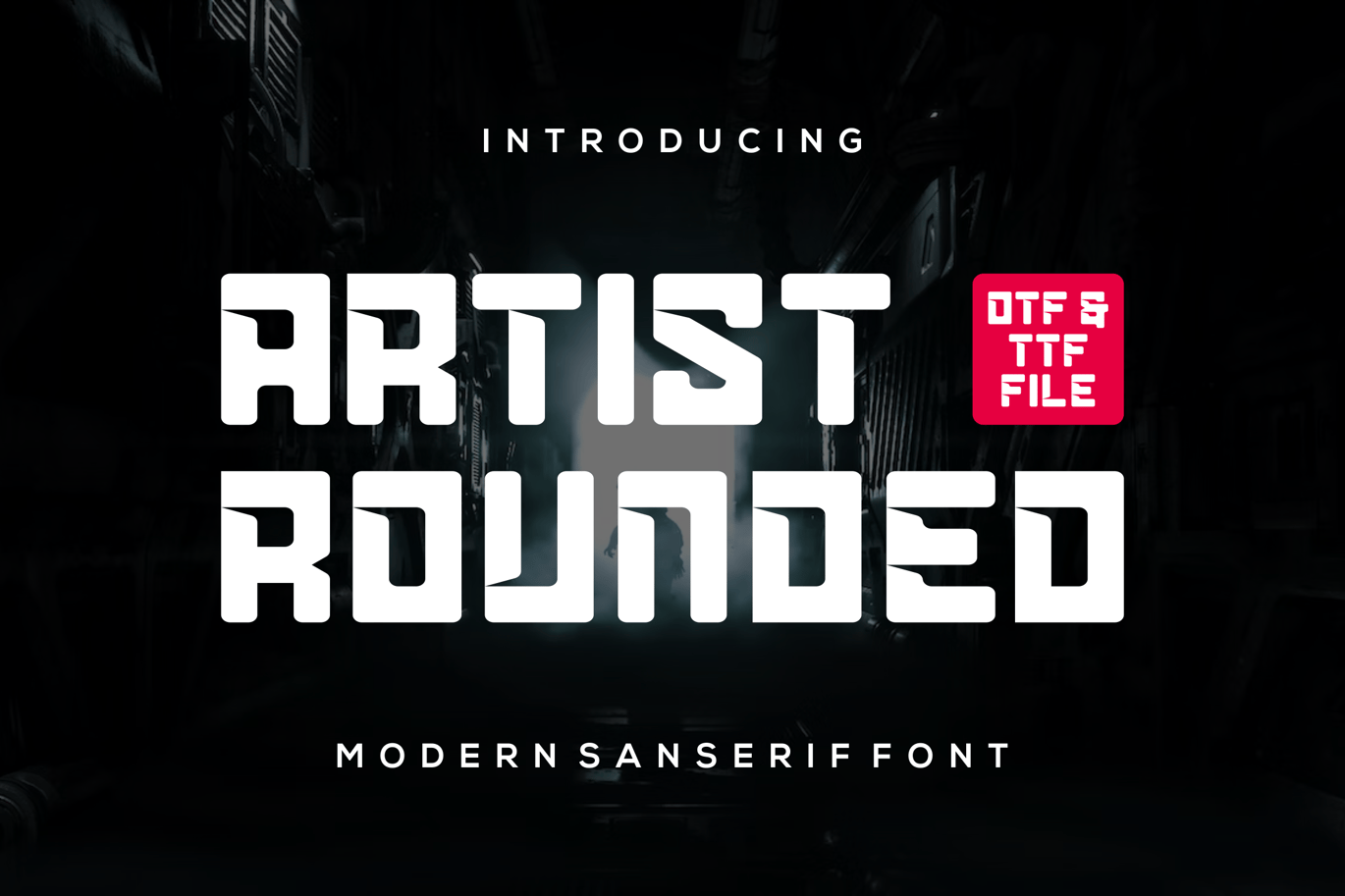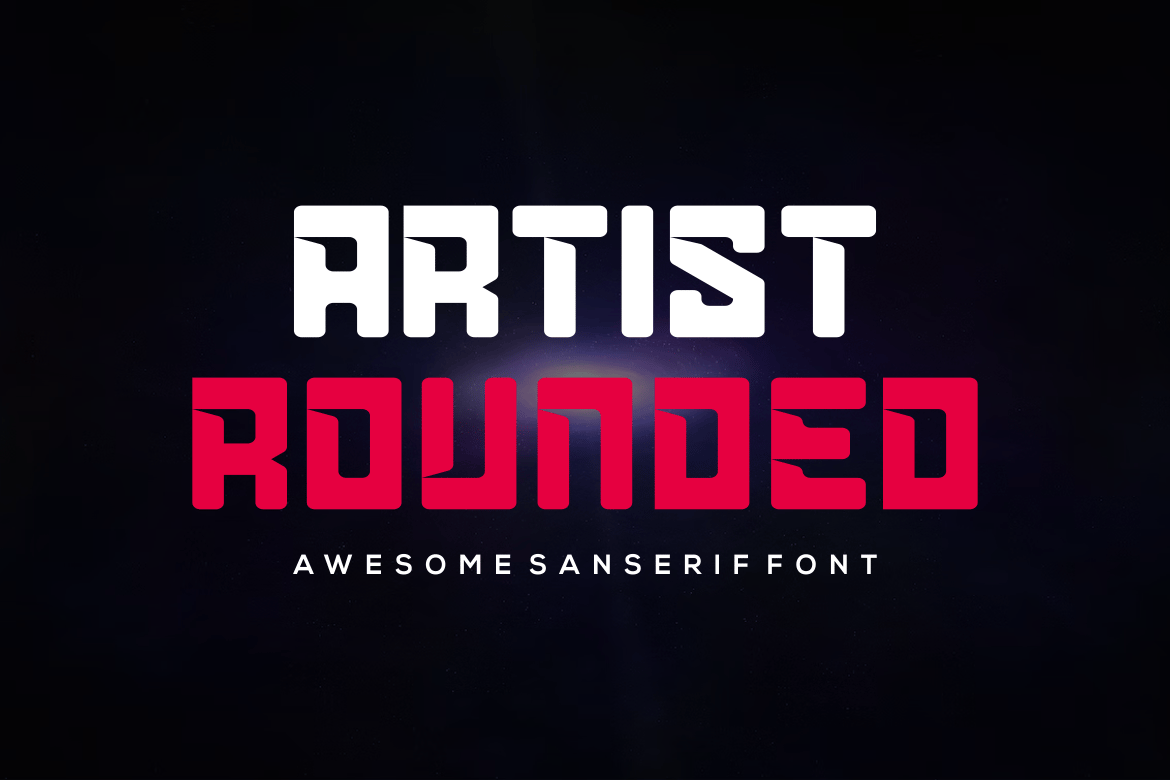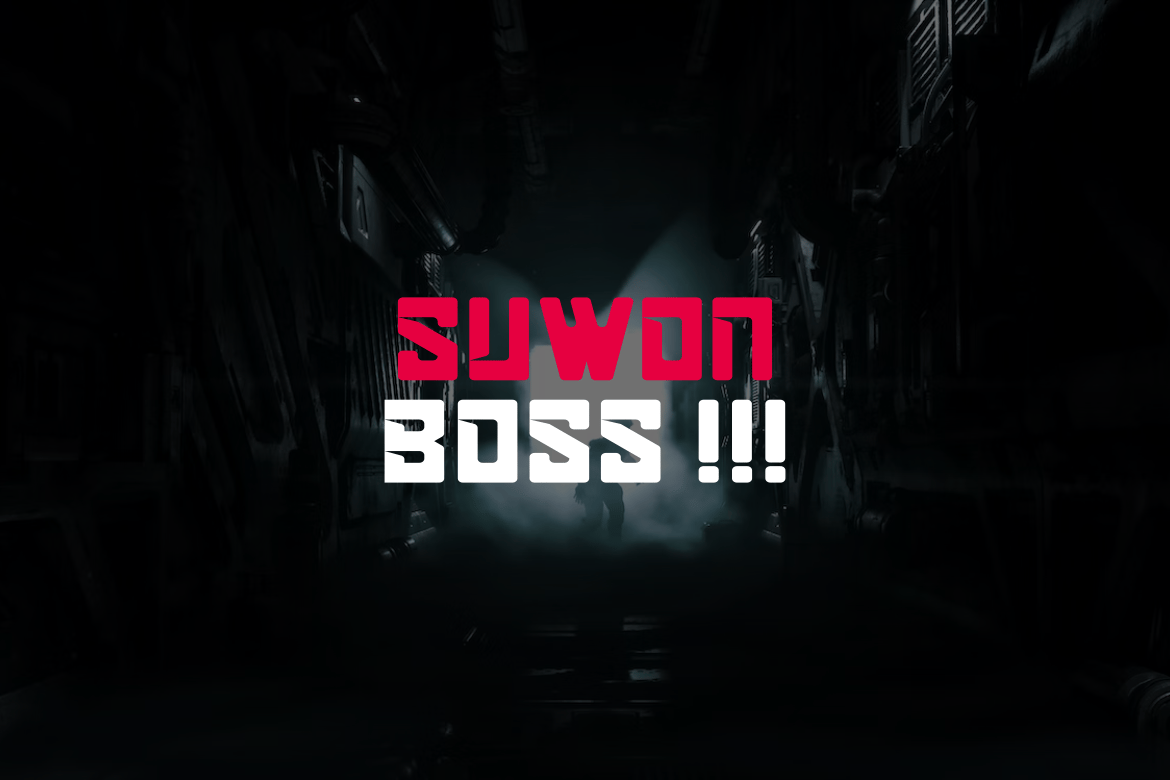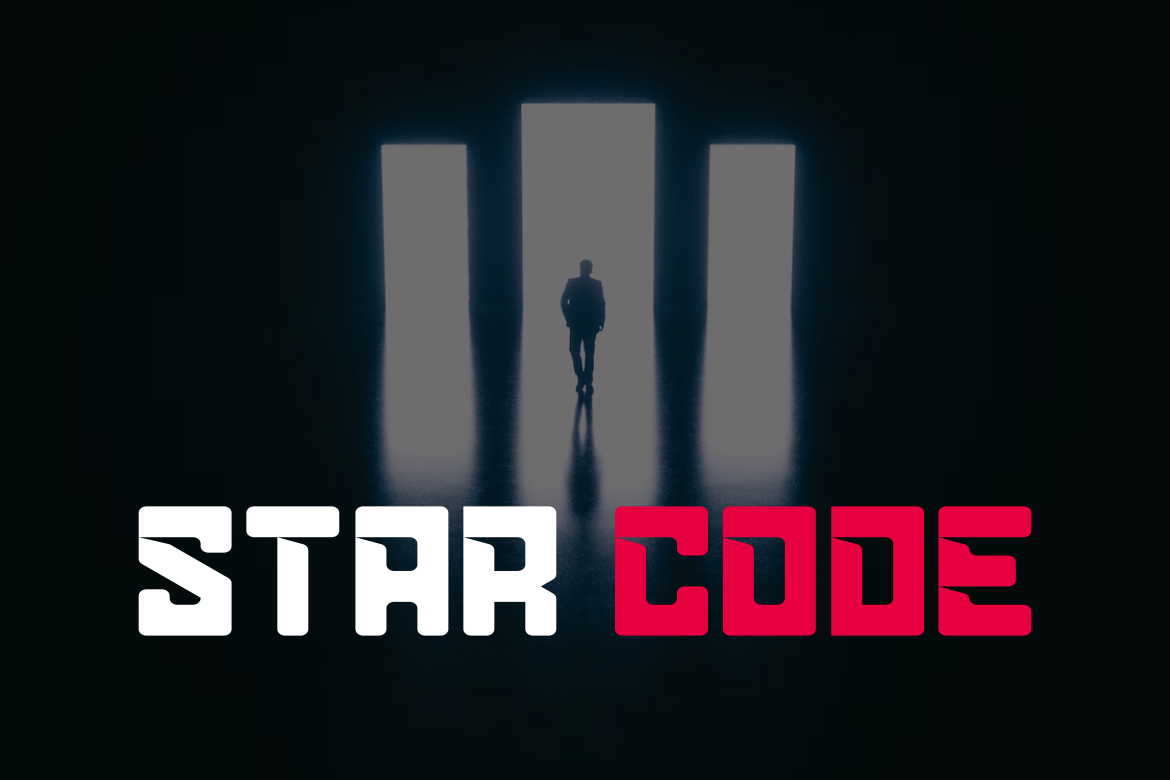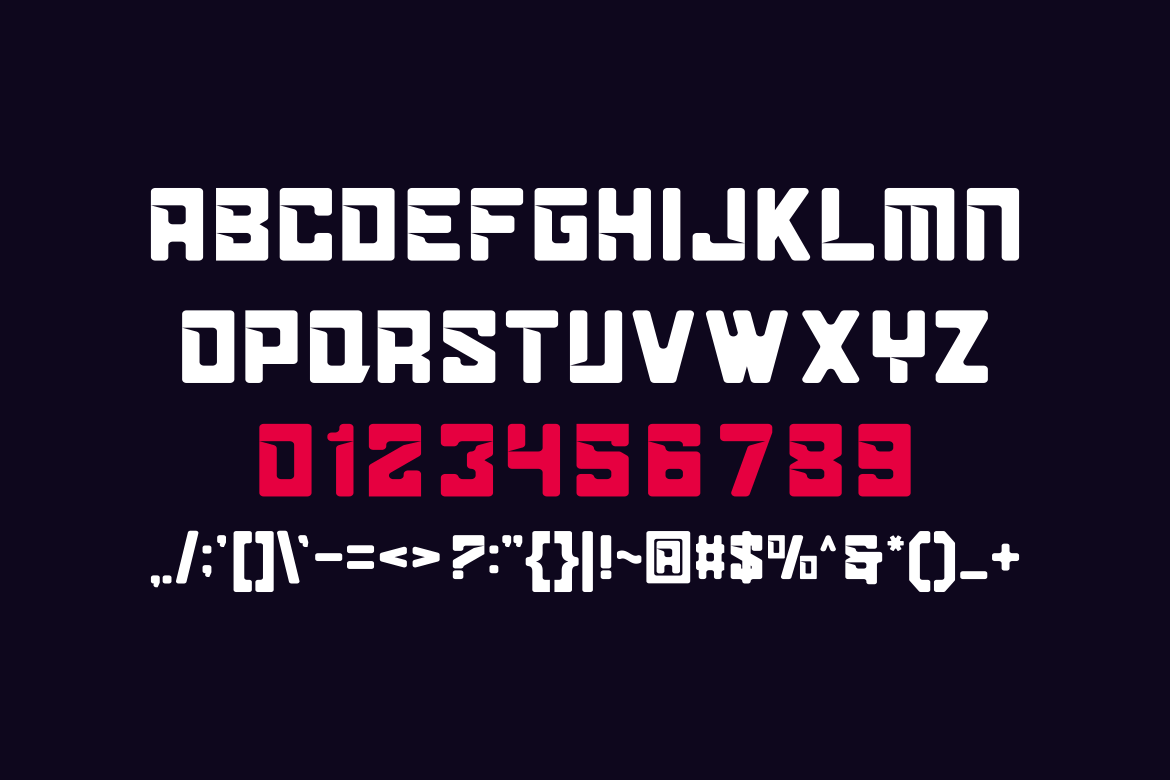
Artist Rounded Fonts
Introducing our new product Roghan Artist Rounded Fonts modern fonts.
Roghan Adventure Fonts modern font is a bold and authentic display font. The font is suitable for any branding project like logo, t-shirt printing, esport, and many more. Outstanding in a wide range of contexts.